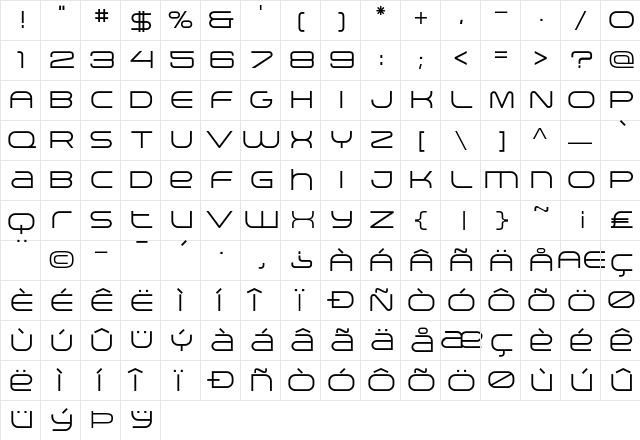
Arkitech Light Regular
| Foundry | Ivan Philipov |
| Designer | Ivan Philipov |
Design Context for Arkitech Light Typeface
Arkitech Light has a distinctly futuristic character, with geometric precision and clean angles that feel at home in technology, gaming, and sci-fi contexts. The delicate stroke weight brings airiness and refinement to layouts.
Pro Tip: Try Arkitech Light with generous letter-spacing in UI labels and navigation — the geometric forms benefit from room to breathe.